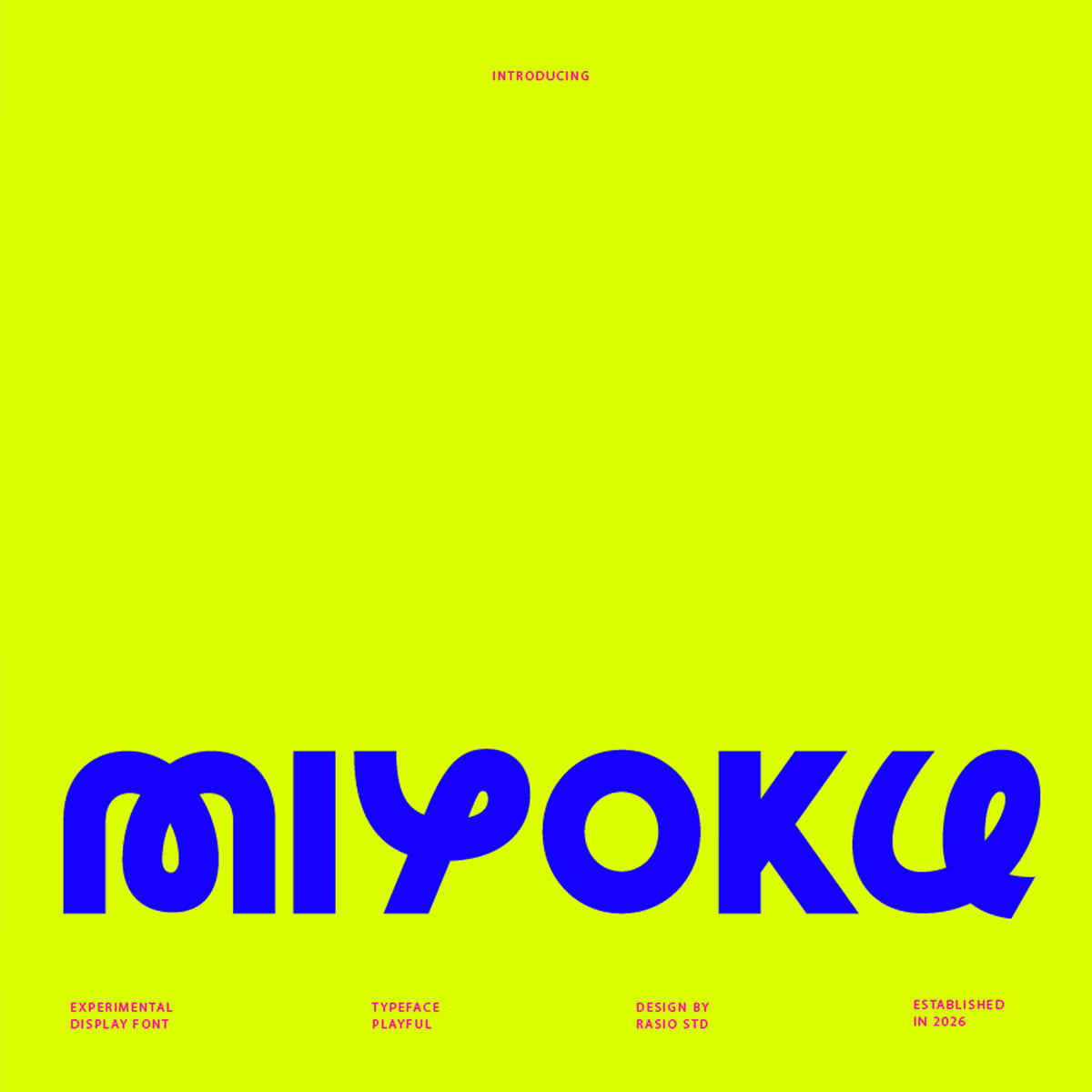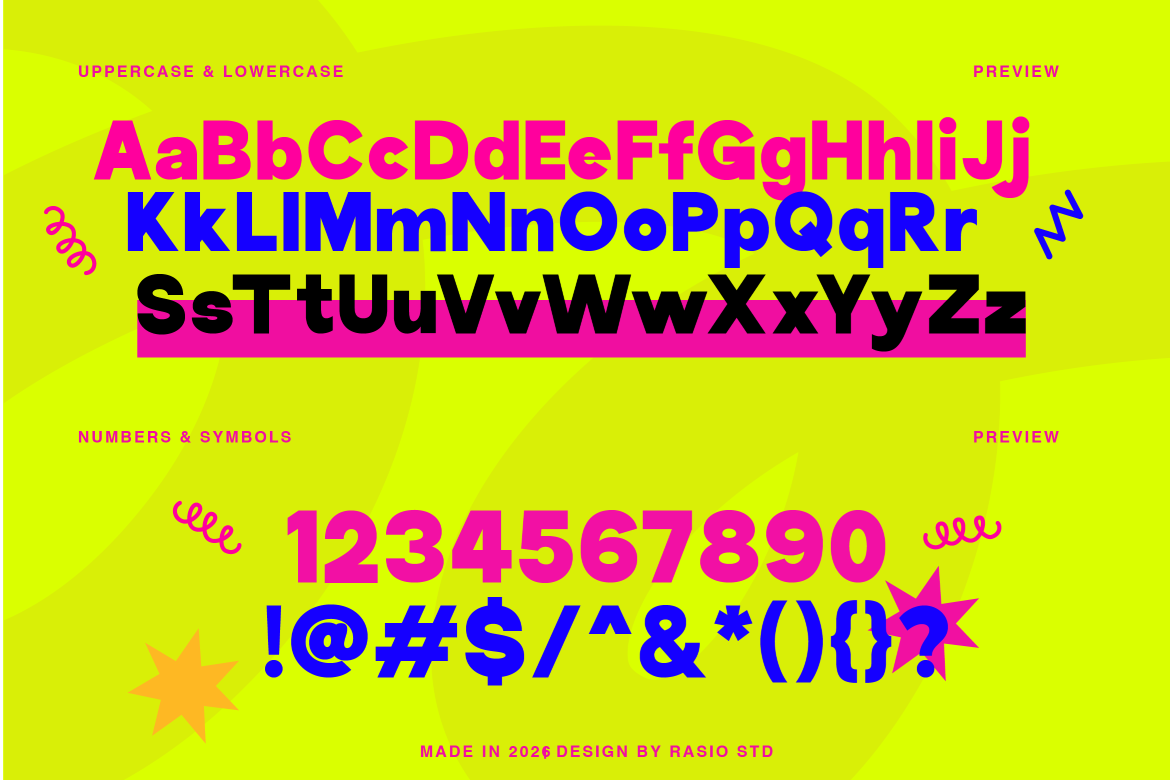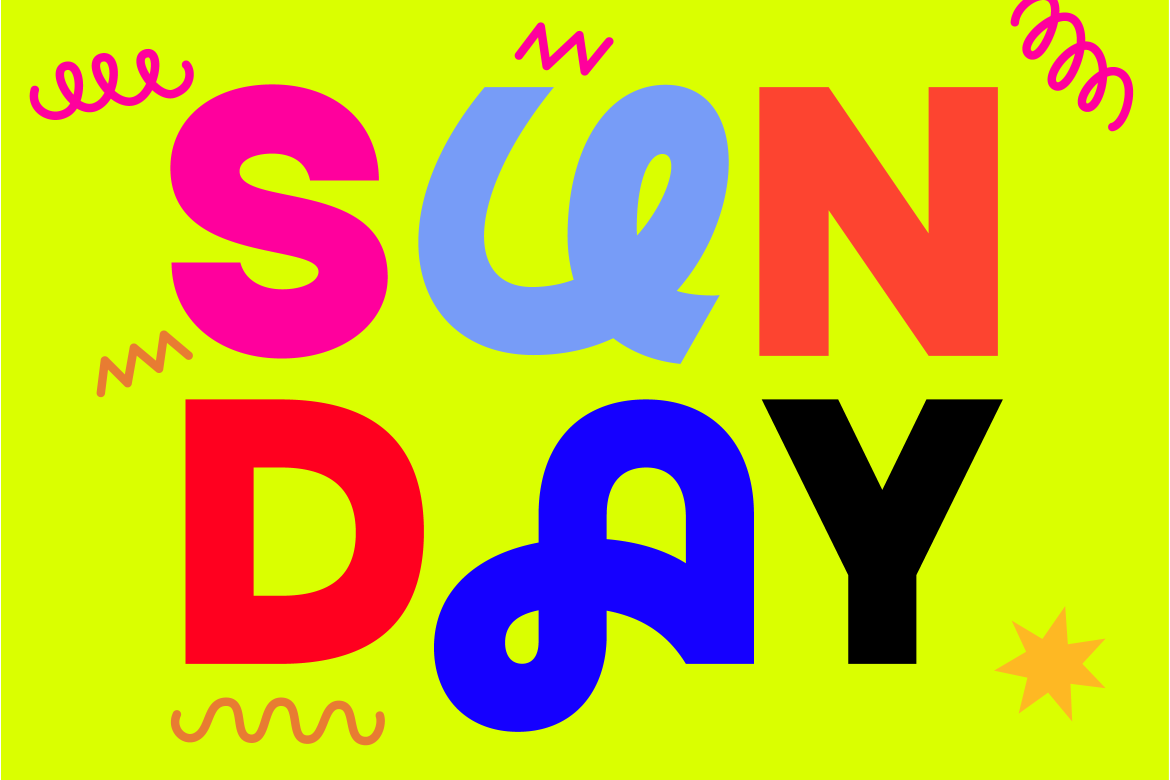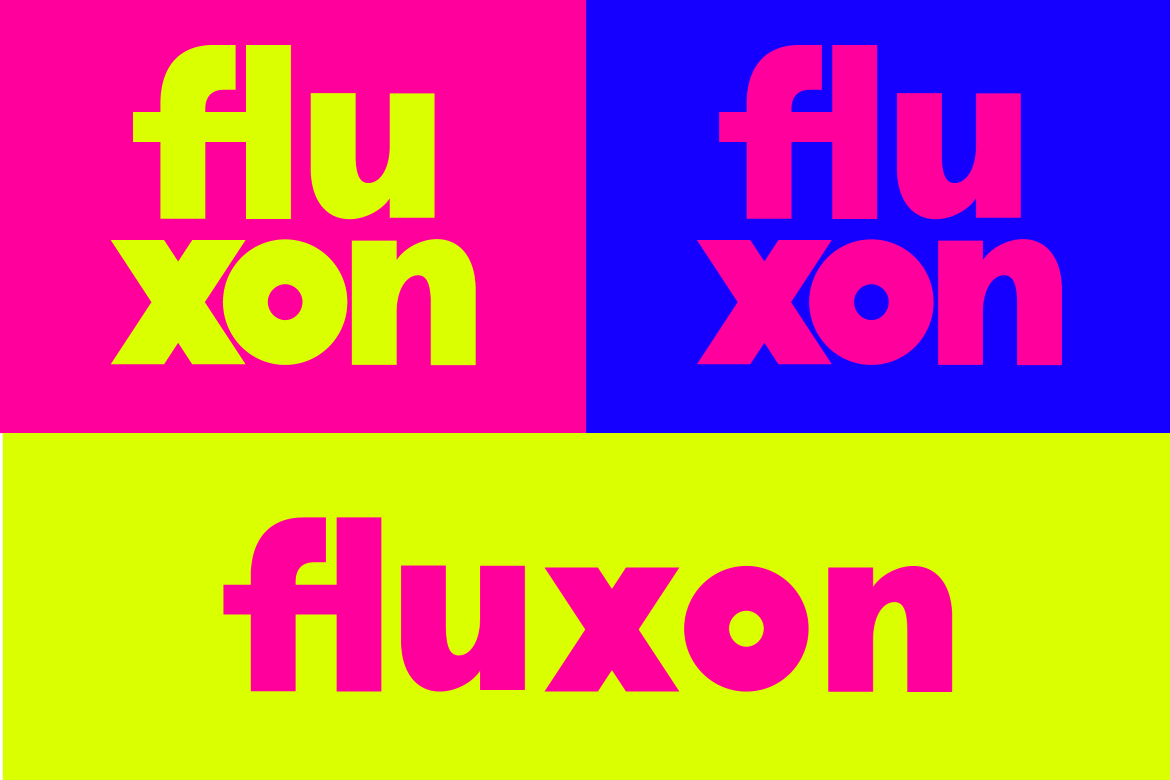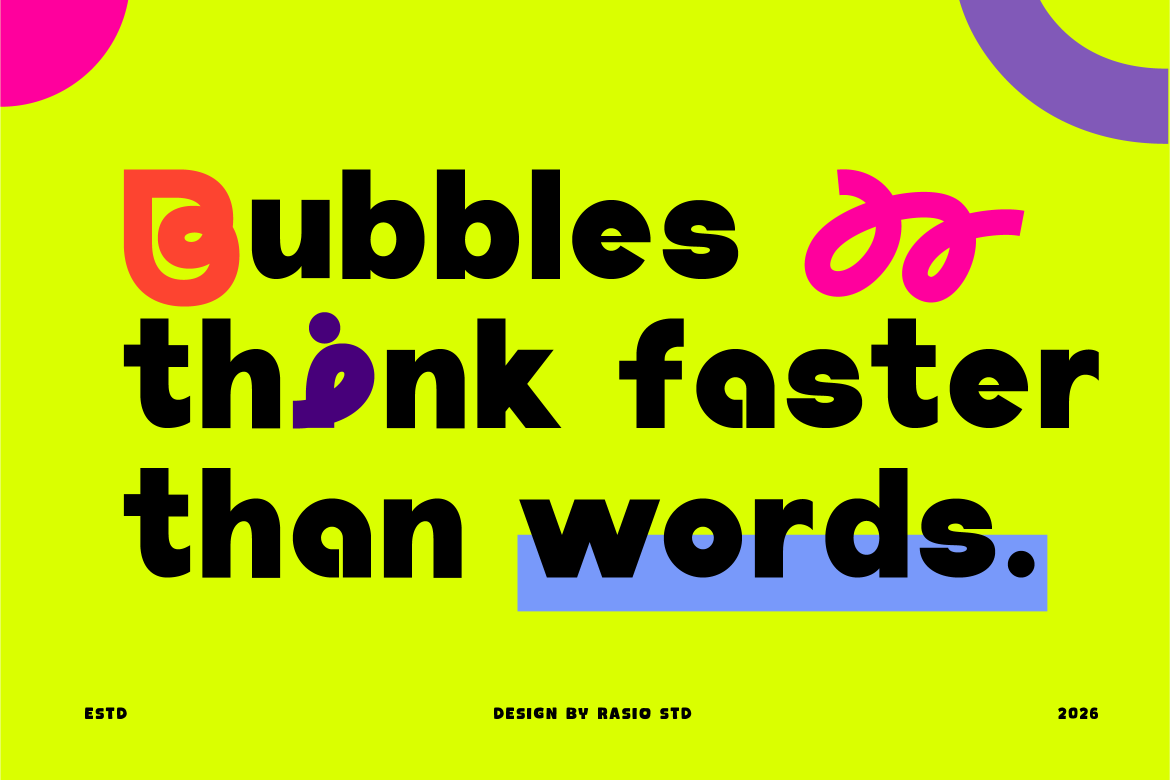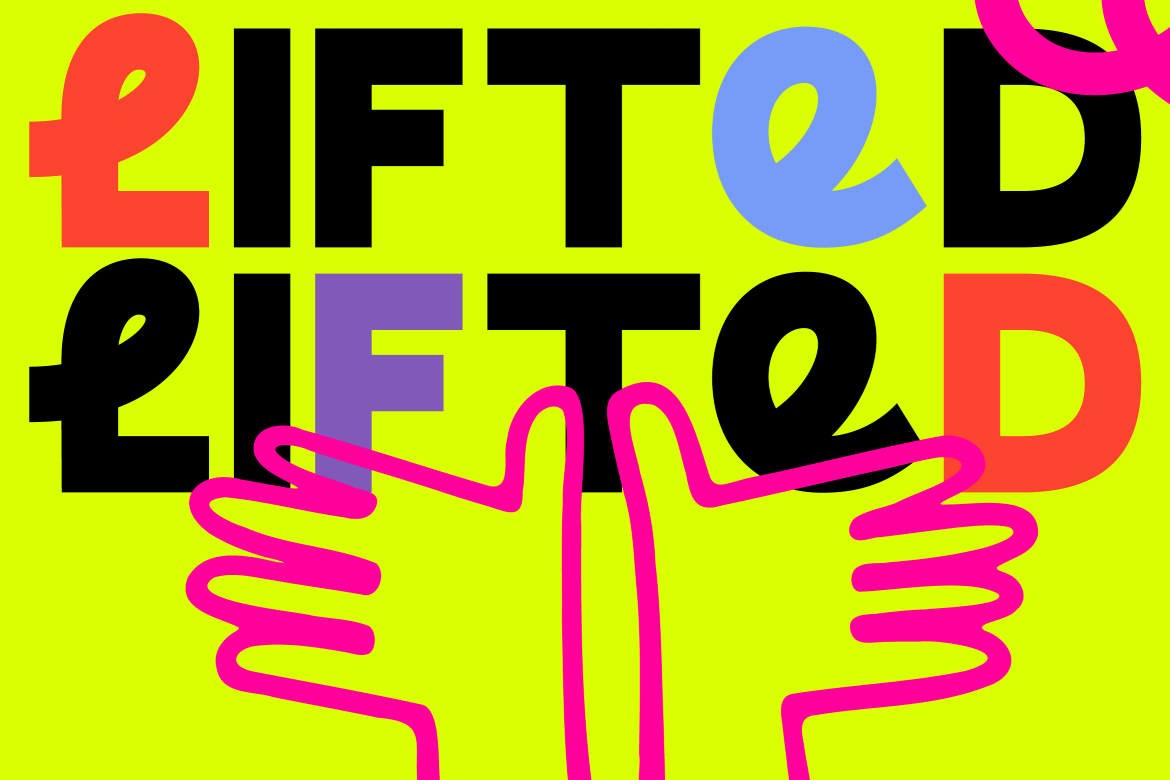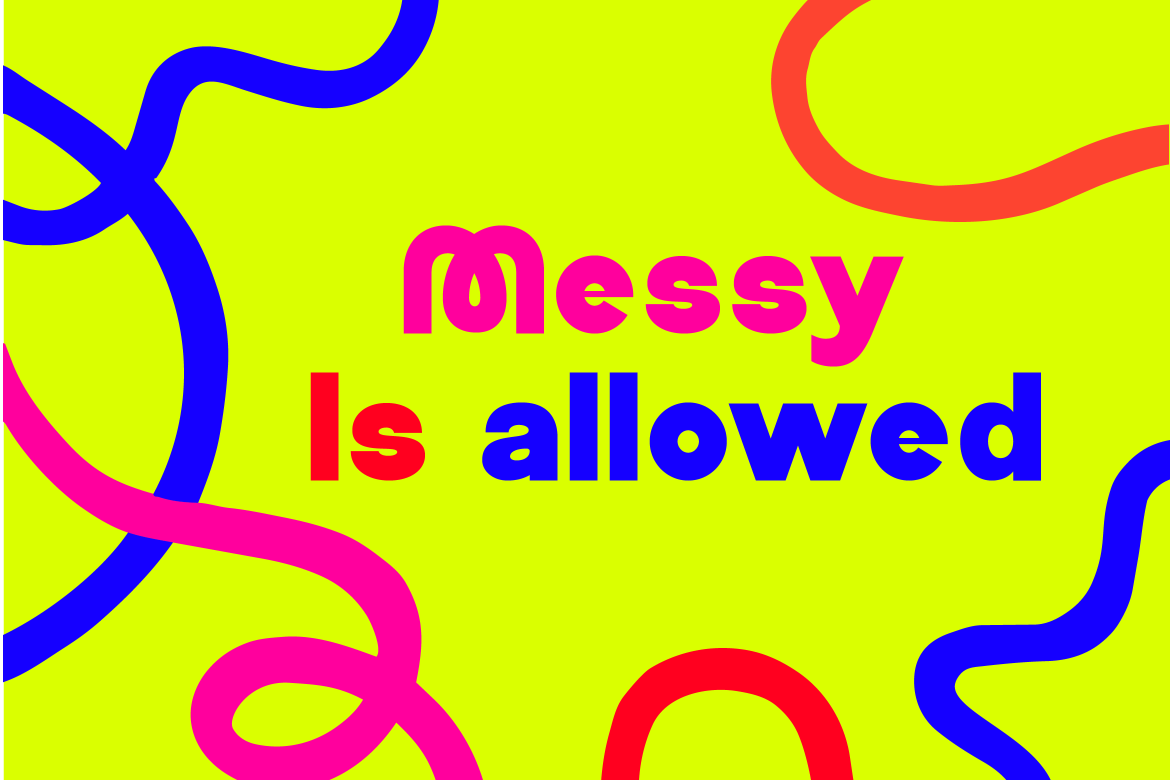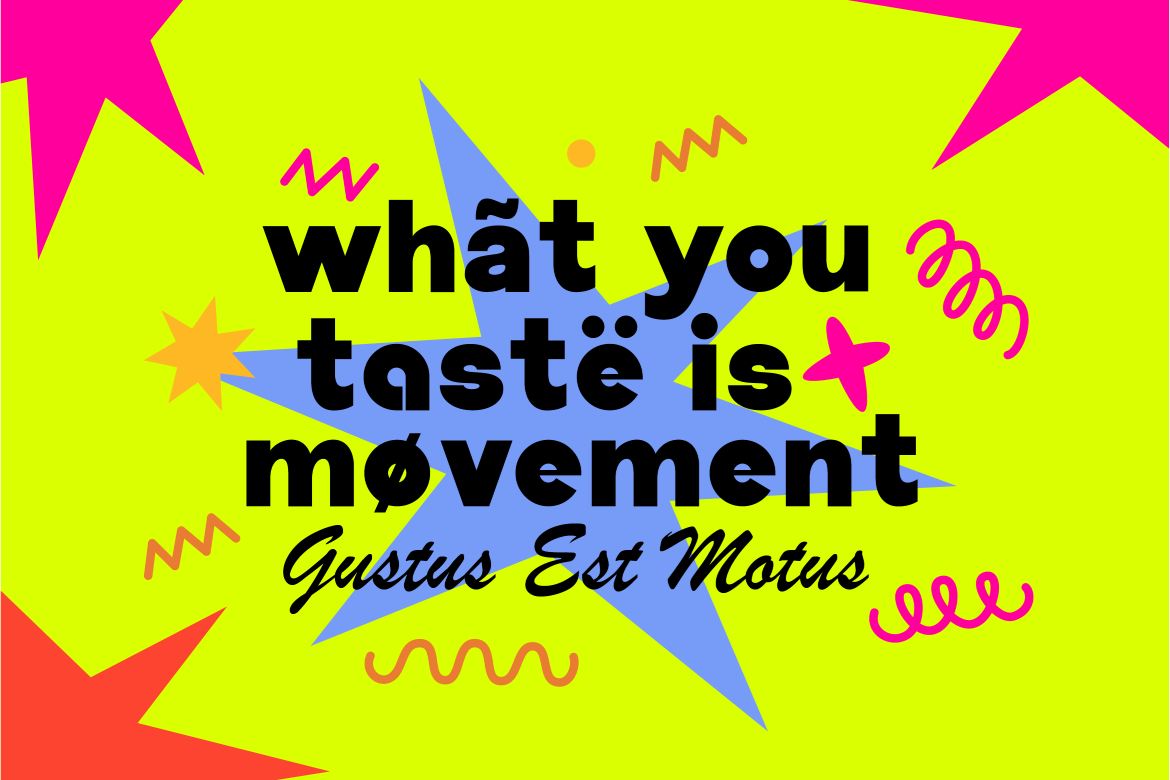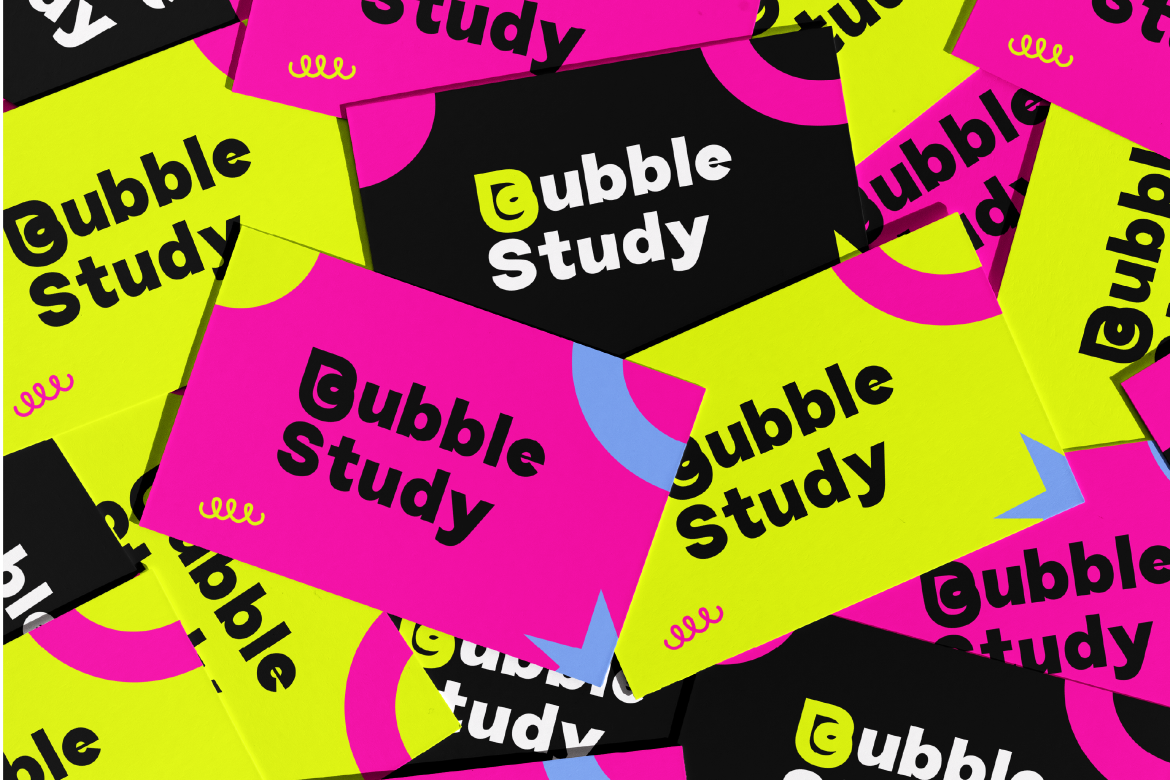
Miyoku Experimental Display Font
Miyoku is a bold and expressive experimental display font that brings a splash of personality to your designs. Its quirky curves, exaggerated forms, and vibrant rhythm make it ideal for fun branding, eye-catching posters, children’s products, creative packaging, and standout social media content. This typeface includes uppercase, lowercase, numbers, and a full set of symbols and punctuation.
Relevance and Use Cases is perfect for Miyoku is perfect for designers seeking a bold, experimental font with a joyful vibe. Whether used in event posters, children's branding, music or art festivals, toy packaging, or YouTube thumbnails, Miyoku's distinctive look grabs attention and conveys creativity.
Miyoku is an experimental display font featuring uppercase, lowercase, numerals, and a full set of symbols and punctuation. It is available in OTF, TTF, and WOFF formats and includes multilingual support, ligatures, and alternate characters.